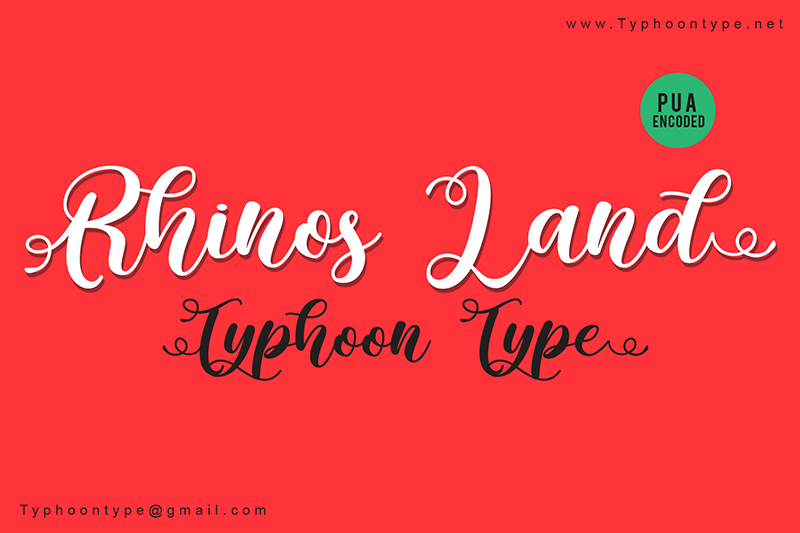
Rhinos Land Font
Type ( before word to get beginning swash and Type ) after word to get the ending swash.
Example : (Typhoon Type)
Typhoon Type – Suthi Srisopha